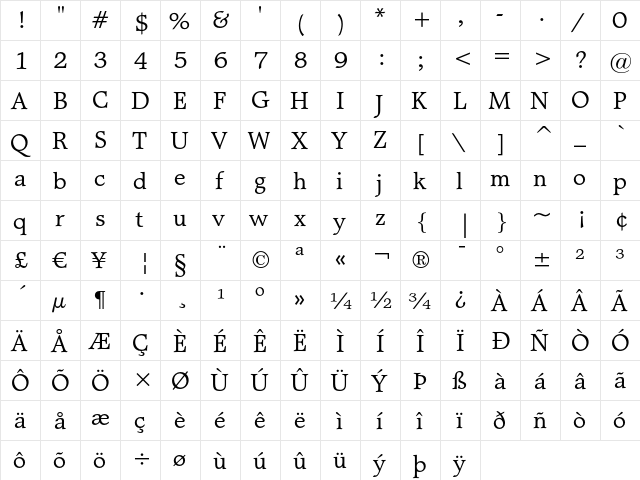
Matt Antique Regular
Design Context for Matt Antique Typeface
Matt Antique has the warm character of retro typography — evoking diners, record sleeves, and the golden age of print advertising.
Perfect for vintage-inspired branding, retro packaging, nostalgia campaigns, and period-accurate editorial design.
Font Pairing: Combine Matt Antique with a simple slab or neutral sans — period-accurate companions reinforce the vintage feel without competing for attention.
Pro Tip: Use Matt Antique for headlines and pull quotes rather than body copy — its personality is best appreciated in short, focused bursts.